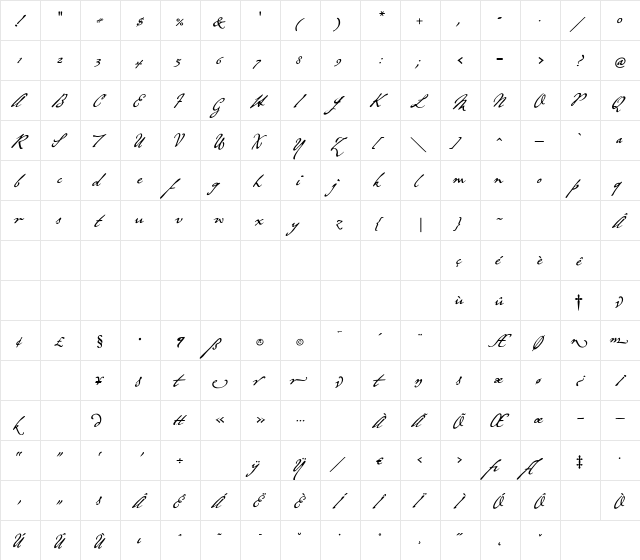
Grosvenor Regular
Design Context for Grosvenor Typeface
Grosvenor is a composed and adaptable typeface that performs quietly and consistently across a wide range of design contexts.